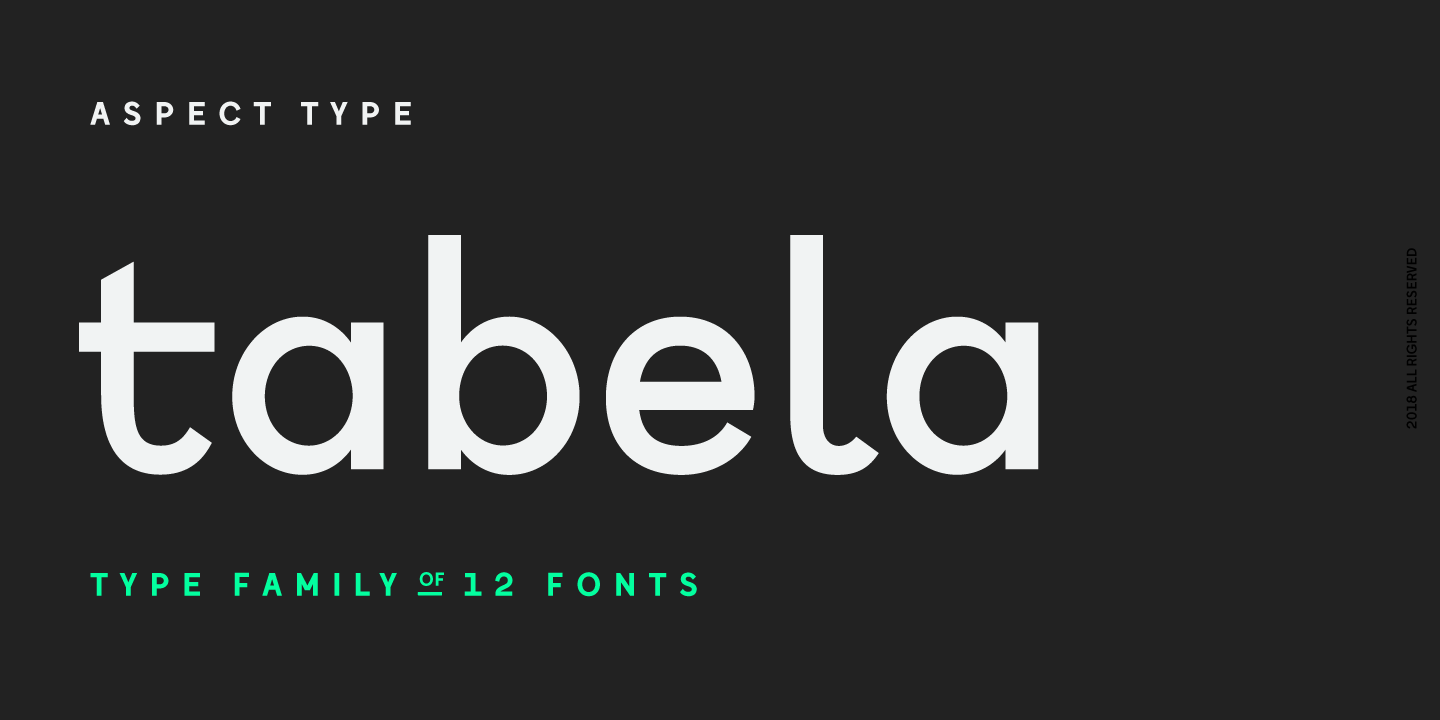
Tabela Font is perfect for data visualization projects, statistical reports, financial spreadsheets, research presentations, analytical dashboards, educational infographics, scientific publications, and professional tabular communications.
This structured sans-serif typeface is exciting because it optimizes clarity and precision for numerical data presentation through carefully spaced letterforms that enhance readability in tables, charts, and complex information displays.
The Tabela Font family includes light, regular, medium, and bold weights with tabular figure variants, data-friendly alternates, and statistical formatting options that enhance the professional atmosphere of any analytical design project.
Precise and analytical, Tabela Font Free Download transforms complex data into clear, comprehensible communications through exceptional typographic organization and numerical clarity. This professional font embodies the precision and systematic thinking required for effective data analysis, making it essential for organizations that depend on accurate information presentation. Its structured character reflects the methodical approach and attention to detail that defines quality research and financial analysis, resonating with audiences who appreciate clarity and professional competence. Perfect for financial institutions and research organizations, this font ensures your data carries the credibility and readability that decision-makers require for informed choices. Whether used for quarterly reports or scientific studies, Tabela Font Free Download delivers the analytical precision and professional reliability that connects with audiences who understand that clear data presentation is fundamental to effective business communication and scientific progress.